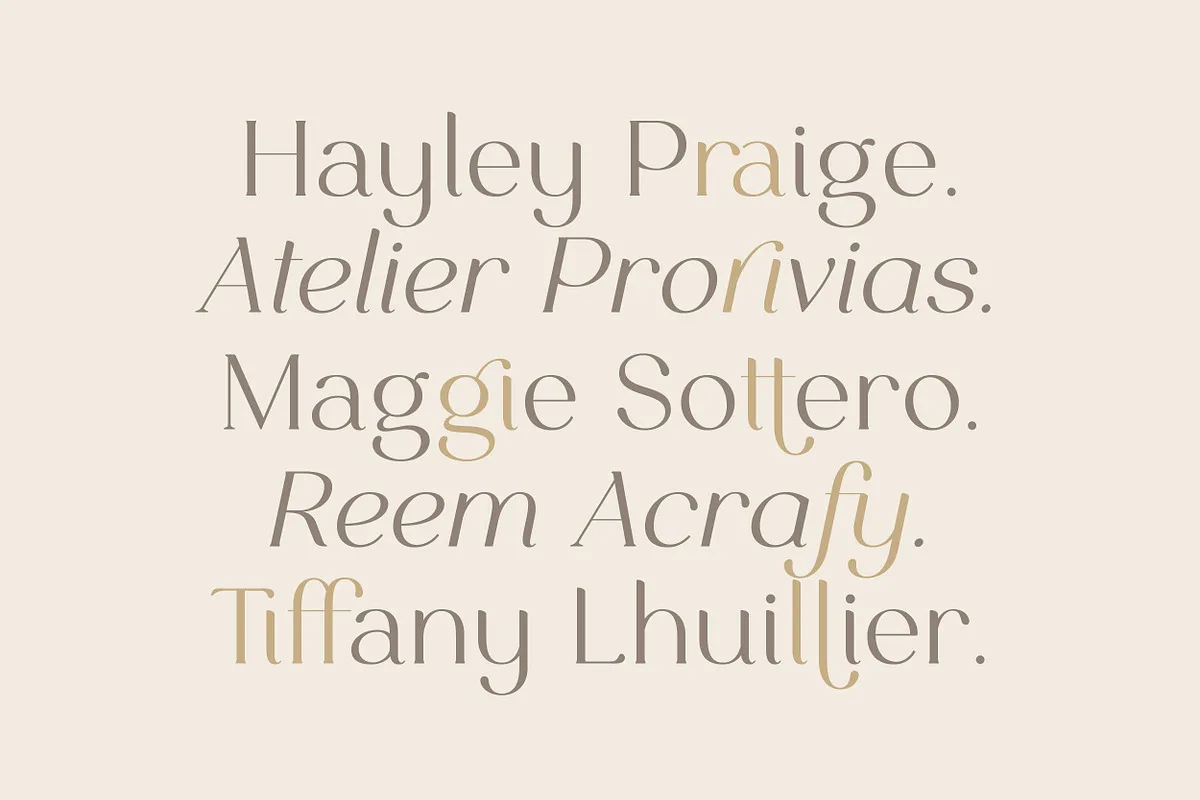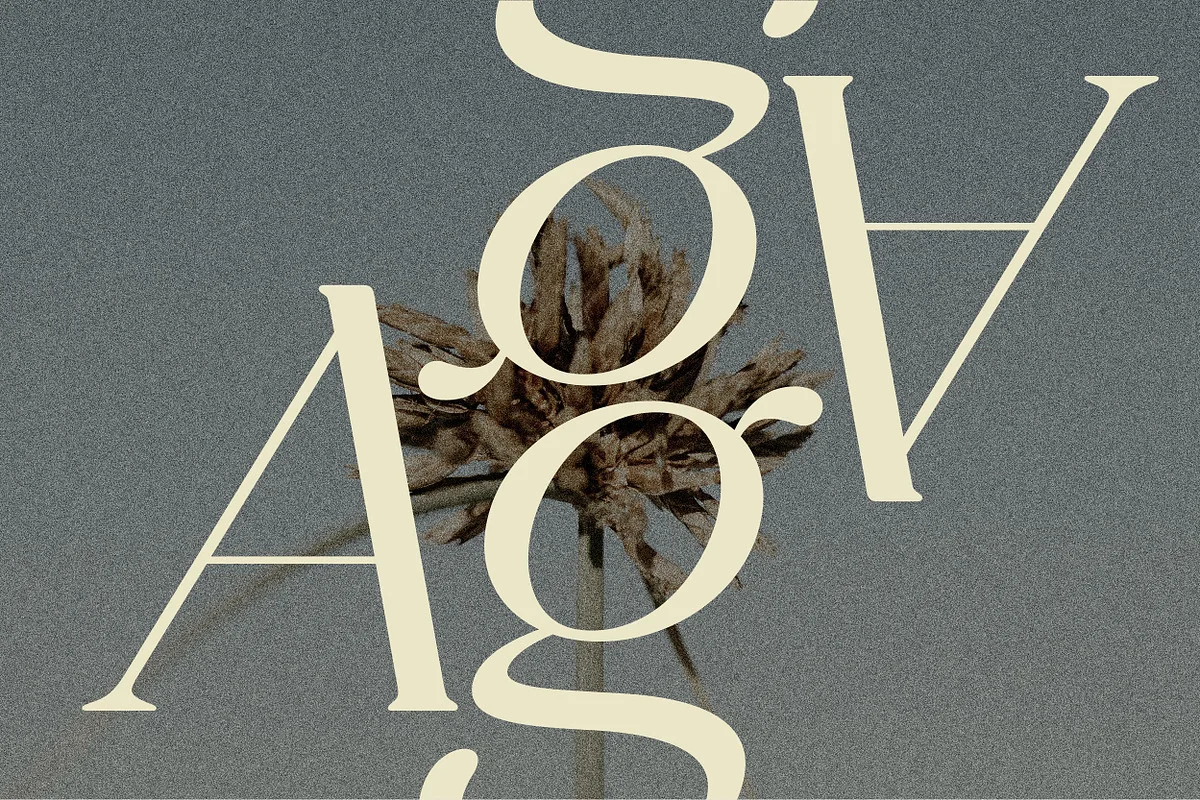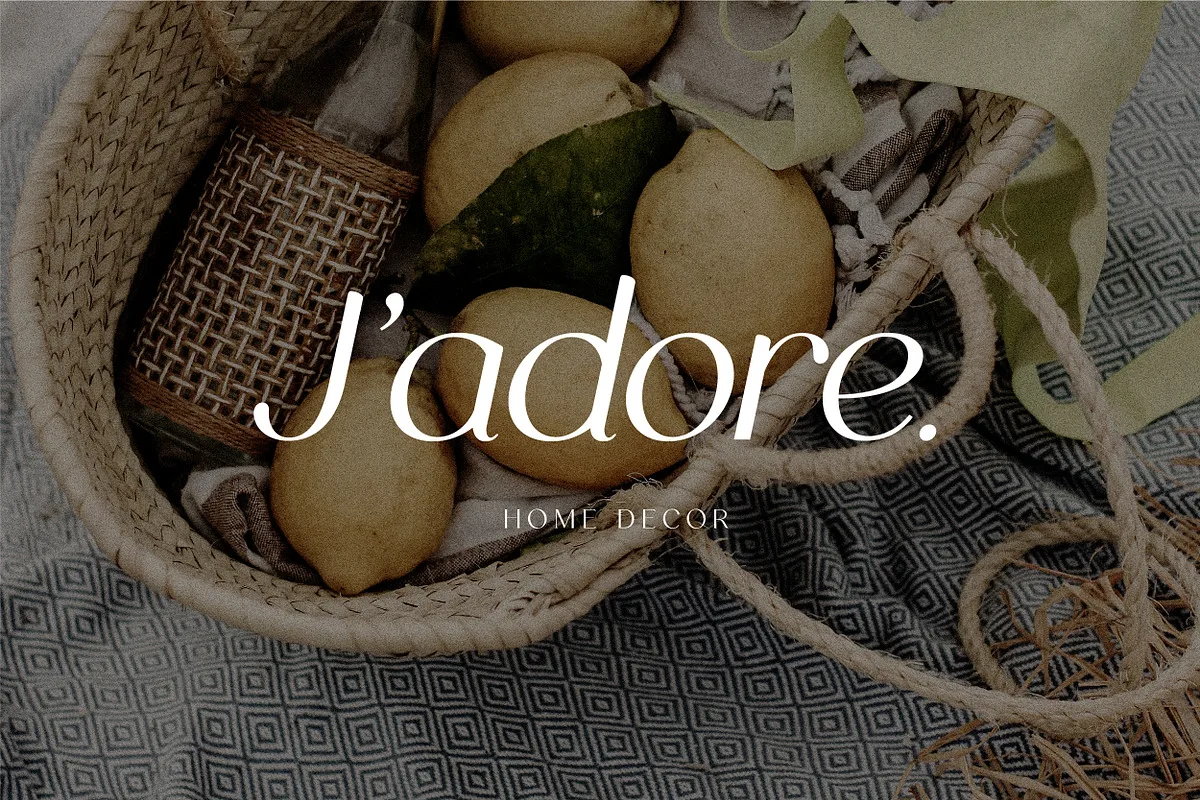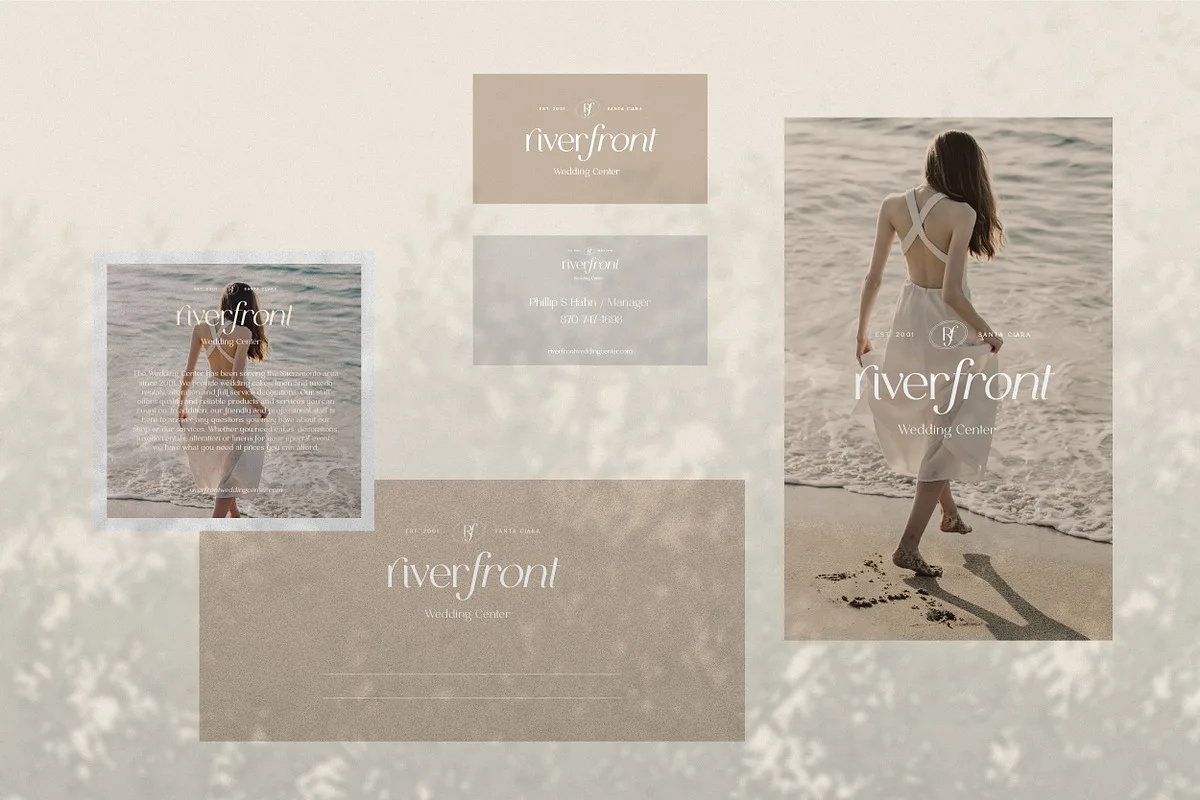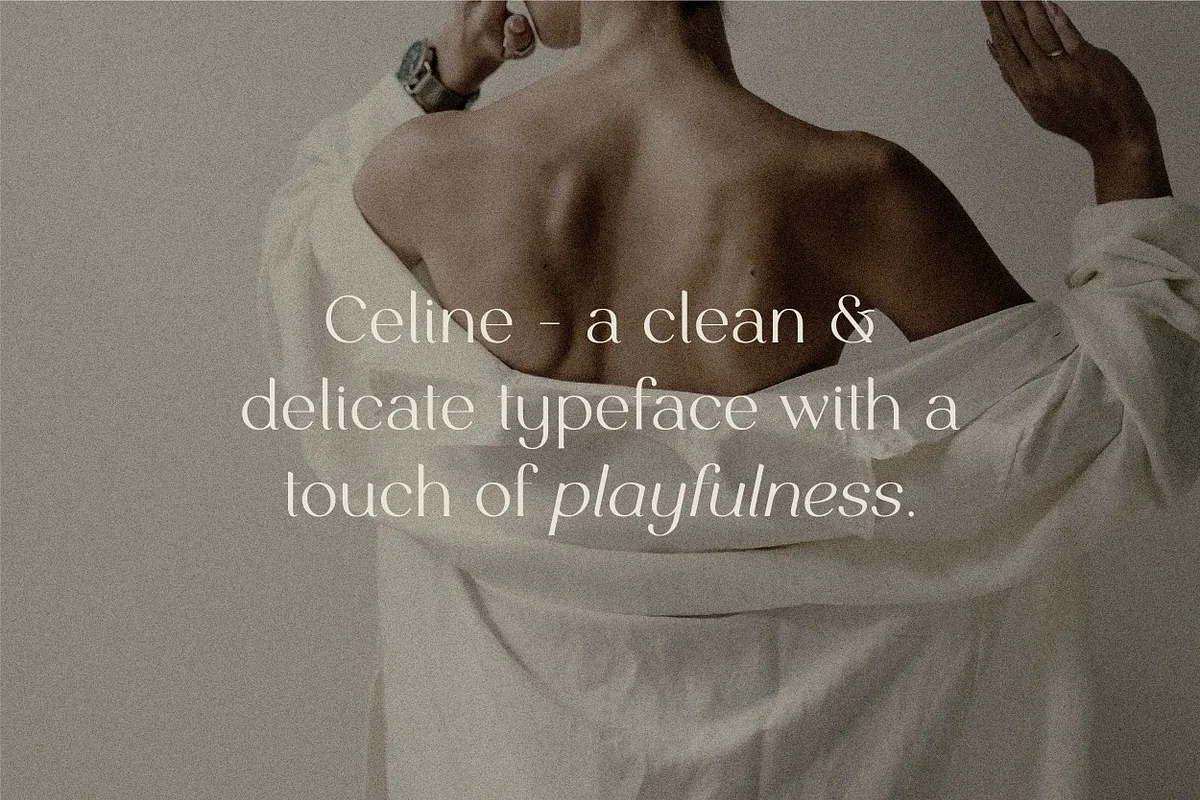
Celine is a clean and delicate serif typeface with a touch of playfulness. This typeface features many options of alternates and ligatures. It’s a great font for fashion, apparel projects, signature, album cover, logo, branding, magazine, social media, & advertisements, but also works great for other projects.